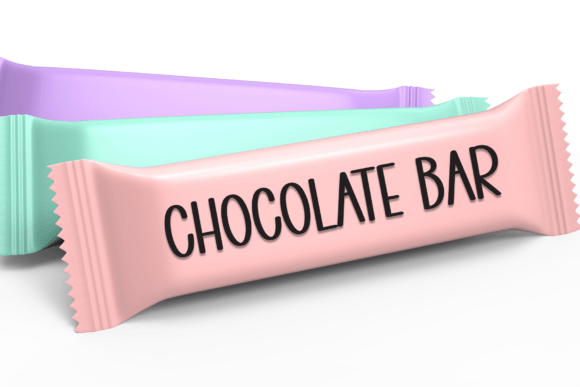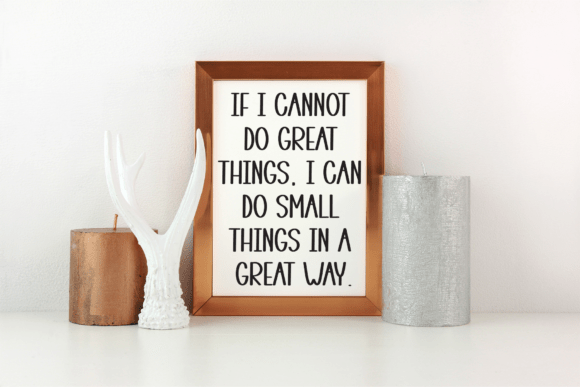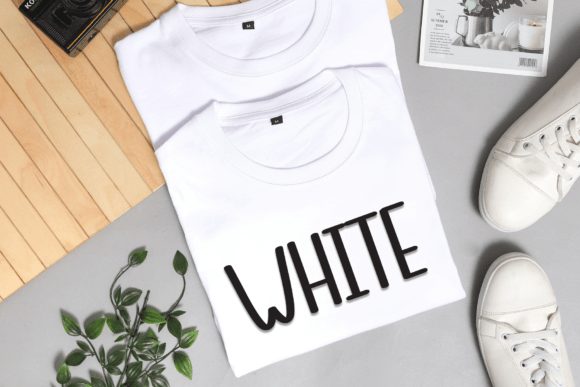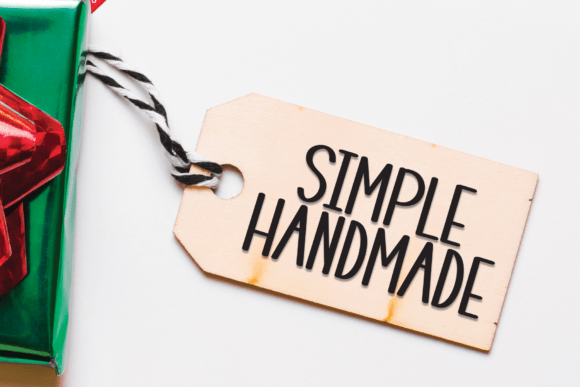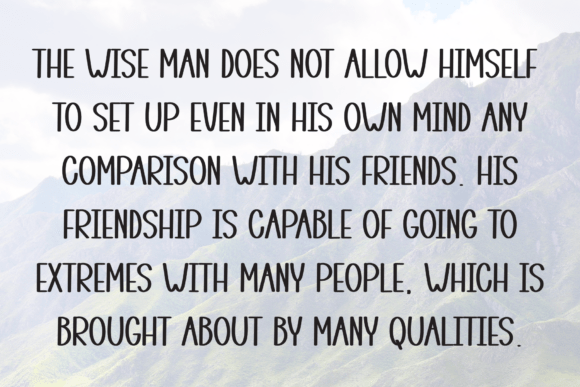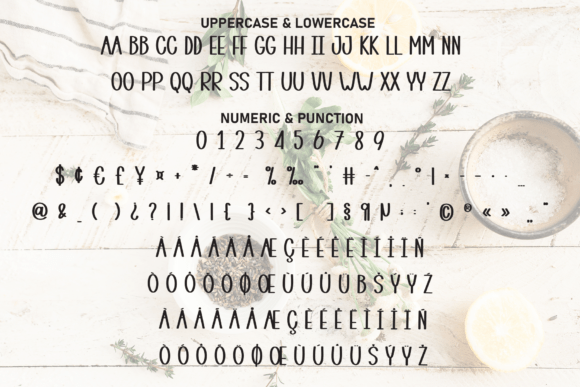
Introduction to Lemon Farmhouse Font
Lemon Farmhouse is a casual and neat display font that radiates a fresh, friendly vibe.
With clean lines and a relaxed structure, itโ€™s perfect for packaging, posters, and social media graphics The approachable design adds charm and clarity to projects while maintaining a polished appearance.
Lemon Farmhouse Font offers exceptional quality and versatility, making it a valuable addition to your design toolkit. Whether you’re creating for personal projects or commercial use, Lemon Farmhouse Font delivers professional results.